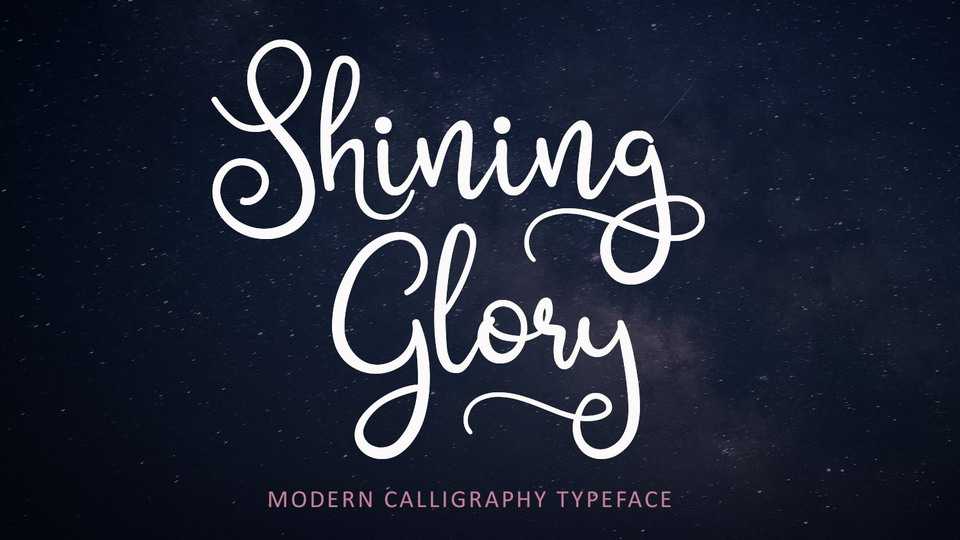
Download Shining Glory font, a charming modern calligraphy script. This font will make your design look elegant, natural and stylish. Great for quote design, branding, wedding, photography, simply design with stylish text overlay to any background image.